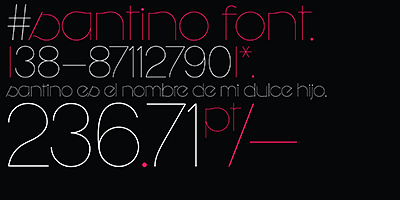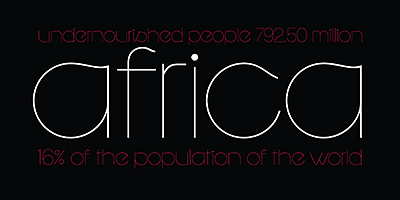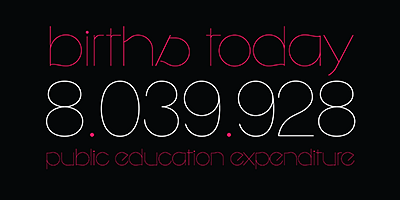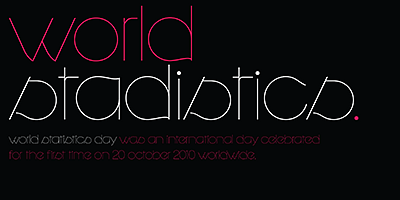
Santino is a rounded monoline, post-bauhaus geometric font with smooth extremes and a touch of modern sensuality. It is named after Ariel “Negro” Di Lisio’s son. The fonts were designed by Ariel Di Lisio and digitized by Alejandro Paul.